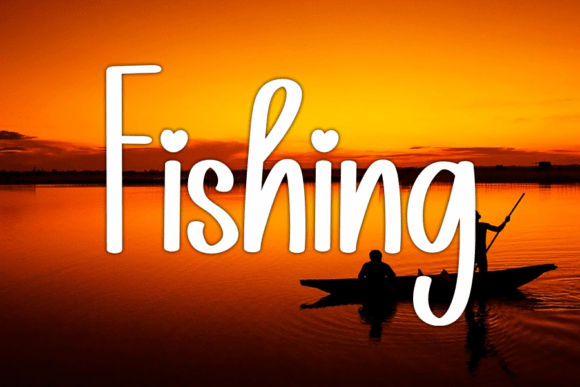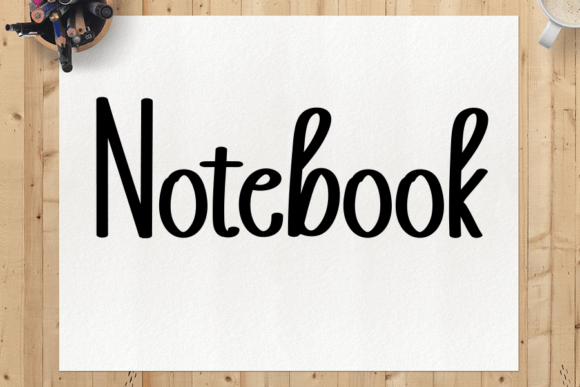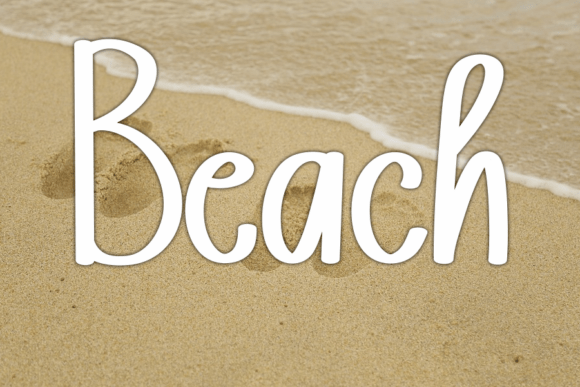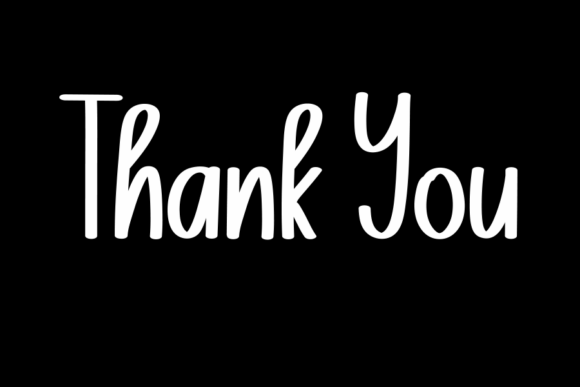
Introducing Blanket Font: The Simple Handwritten Font for All Your Design Needs
Are you looking for a font that can add a touch of simplicity and naturalness to your designs? Look no further than Blanket Font! This versatile handwritten font is perfect for a wide range of applications, from greeting cards to headlines, and is sure to become a staple in your design toolkit.
What is Blanket Font?
Blanket Font is a simple handwritten font that is designed to be easy to read and versatile. Its clean lines and natural feel make it perfect for a variety of design projects, including:
- Headlines and titles
- Signs and posters
- Digital and print media
Key Features of Blanket Font
So, what makes Blanket Font so special? Here are just a few of its key features:
- Simple and handwritten: Blanket Font has a simple, handwritten feel that is perfect for adding a personal touch to your designs.
- Versatile: This font is versatile and can be used for a wide range of design projects, from formal to informal.
- Easy to read: Blanket Font is designed to be easy to read, making it perfect for body text and headlines.
- Natural feel: The font has a natural feel that is perfect for designs that require a personal touch.
Benefits of Using Blanket Font
So, why should you choose Blanket Font for your next design project? Here are just a few benefits of using this versatile font:
- Adds a personal touch: Blanket Font adds a personal touch to your designs, making them more relatable and engaging.
- Perfect for crafty designs: This font is perfect for crafty designs, such as handmade cards and DIY projects.
- Easy to pair with other fonts: Blanket Font is easy to pair with other fonts, making it perfect for designs that require a combination of fonts.
- Great for digital and print media: This font is perfect for both digital and print media, making it a great addition to your design toolkit.
How to Use Blanket Font
Using Blanket Font is easy! Here are a few tips for incorporating this font into your next design project:
- Use it for headlines: Blanket Font is perfect for headlines and titles, adding a touch of simplicity and naturalness to your designs.
- Pair it with other fonts: This font is easy to pair with other fonts, making it perfect for designs that require a combination of fonts.
- Use it for body text: Blanket Font is also great for body text, adding a personal touch to your designs.
In conclusion, Blanket Font is a versatile and simple handwritten font that is perfect for a wide range of design projects. Its natural feel and ease of use make it a great addition to any design toolkit. Whether you’re a designer, crafter, or DIY enthusiast, Blanket Font is sure to become a staple in your design toolkit. So why wait? Download Blanket Font today and start adding a touch of simplicity and naturalness to your designs!
- What is Blanket Font? Blanket Font is a simple handwritten font that is designed to be easy to read and versatile.
- What can I use Blanket Font for? You can use Blanket Font for a wide range of design projects, including greeting cards, headlines, signs, and posters.
- Is Blanket Font easy to read? Yes, Blanket Font is designed to be easy to read, making it perfect for body text and headlines.